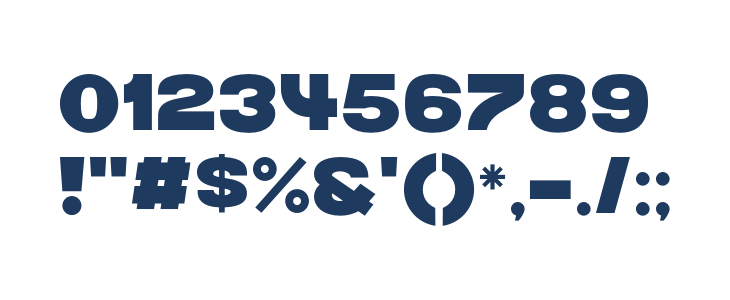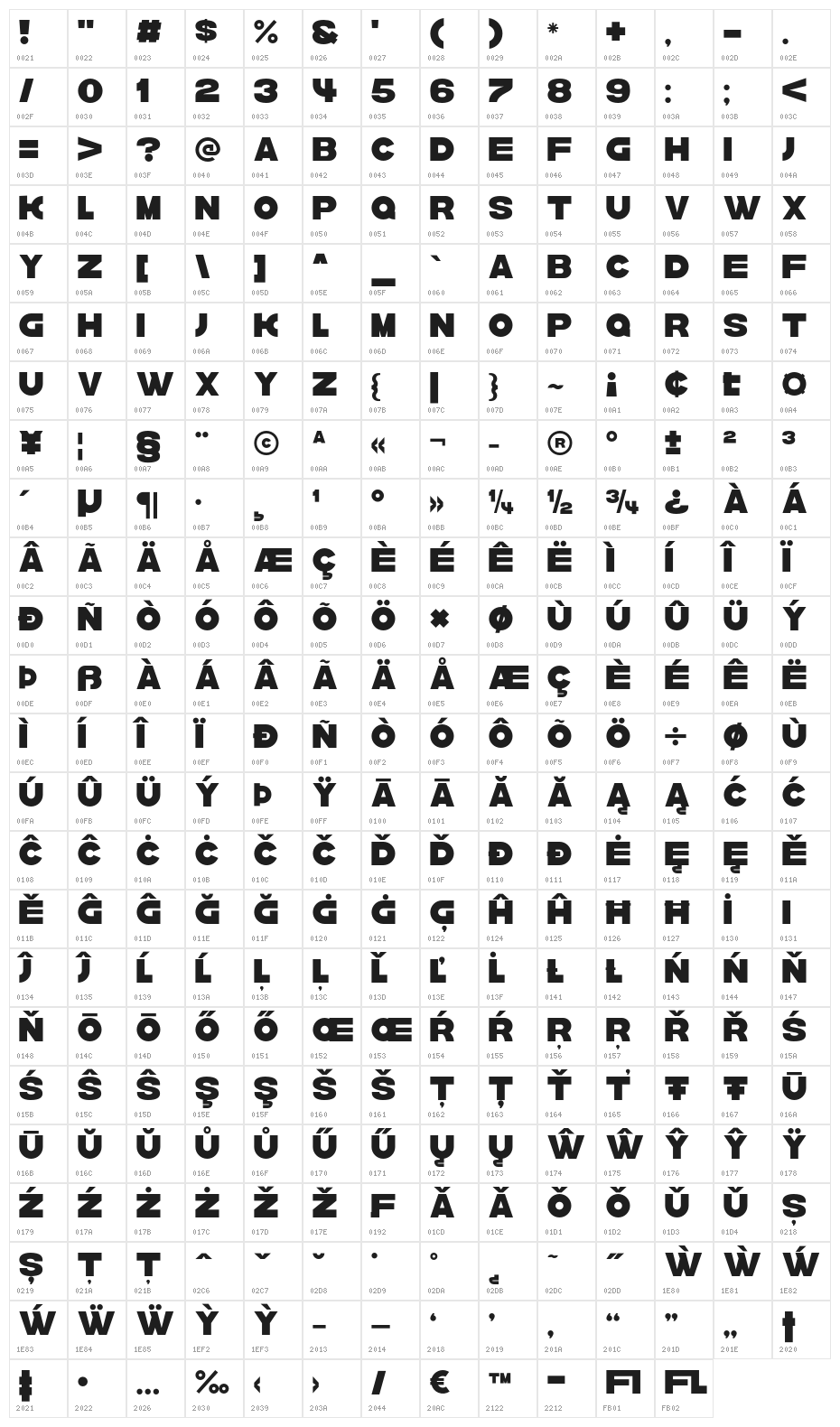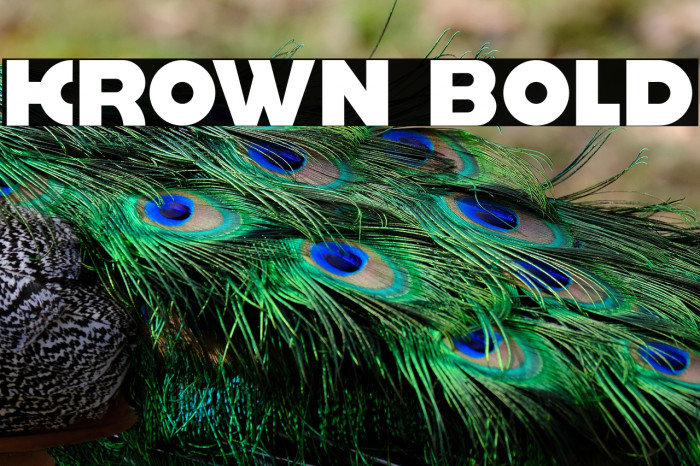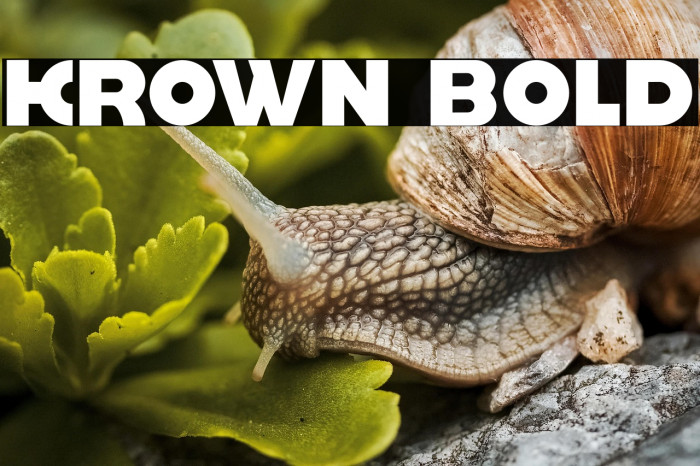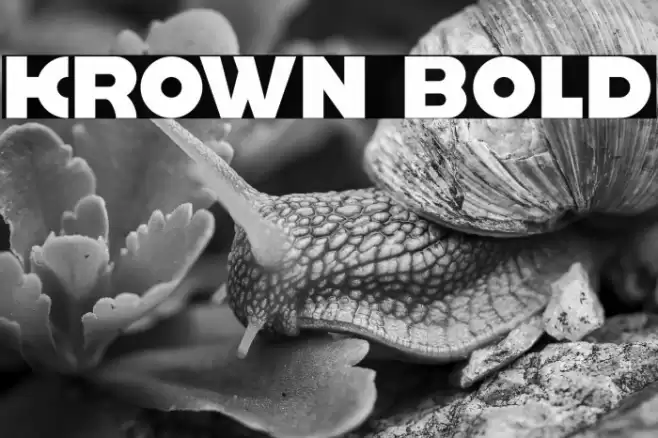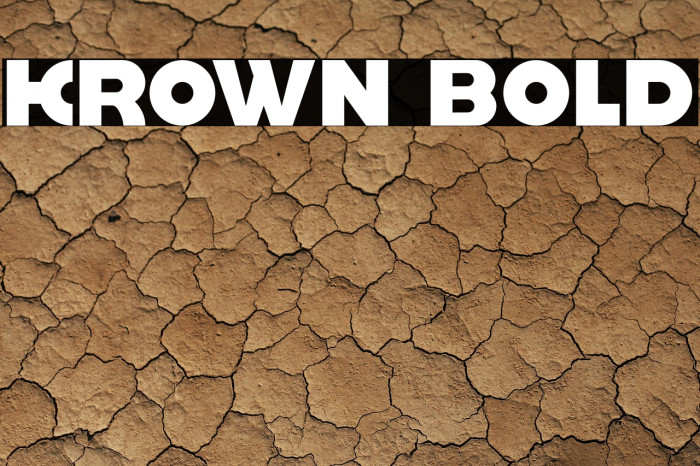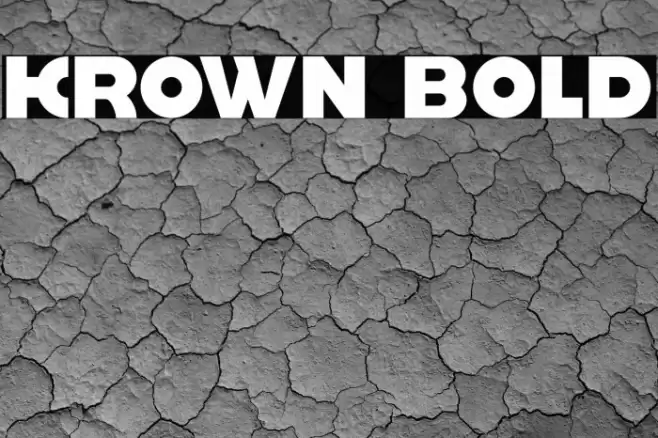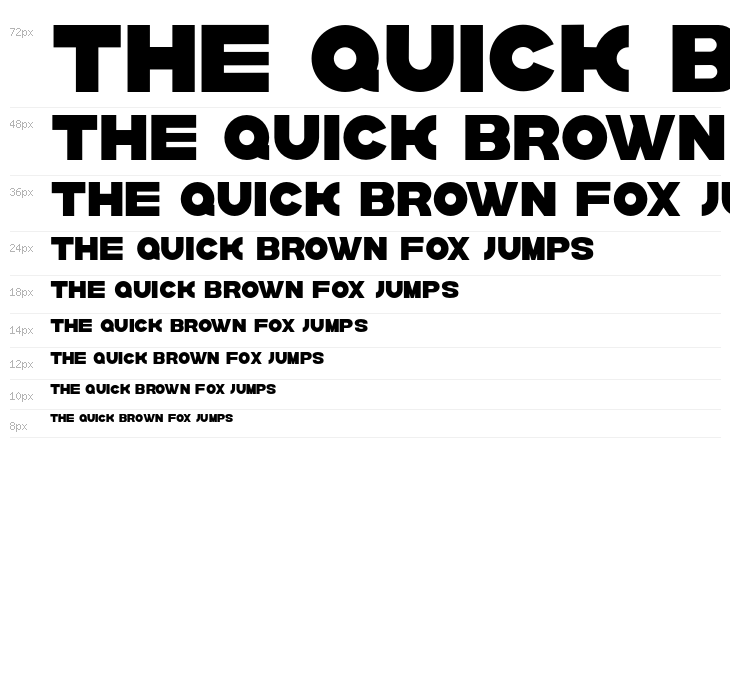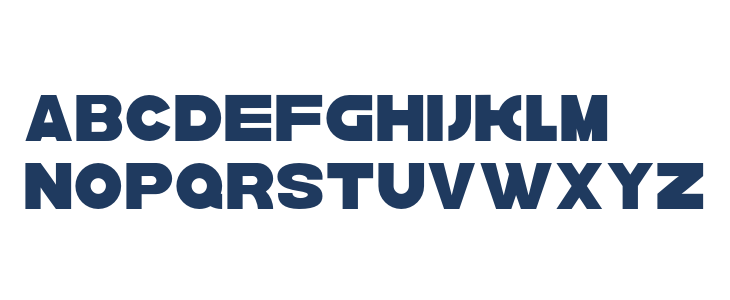
krown Bold Font
krown Bold Description
This font features a bold and impactful design with strong geometric shapes and a modern aesthetic. The characters are constructed with thick strokes, giving them a robust and powerful appearance. The uppercase letters are particularly striking, with a uniform height and width that create a cohesive and balanced look. The numbers and special characters maintain the same boldness, ensuring consistency across all elements. The overall style is clean and contemporary, making it suitable for projects that require a strong visual presence.
| Proposed Projects | Ideal for branding, headlines, posters, and any design that requires a strong visual impact. |